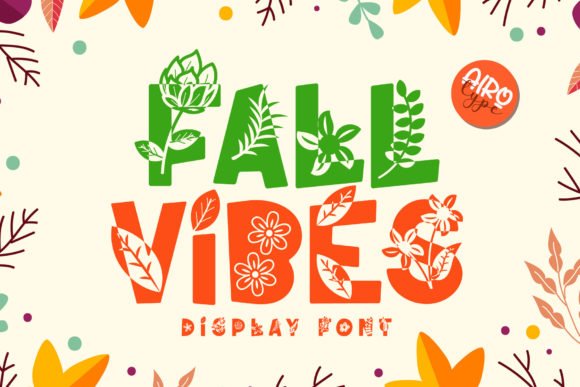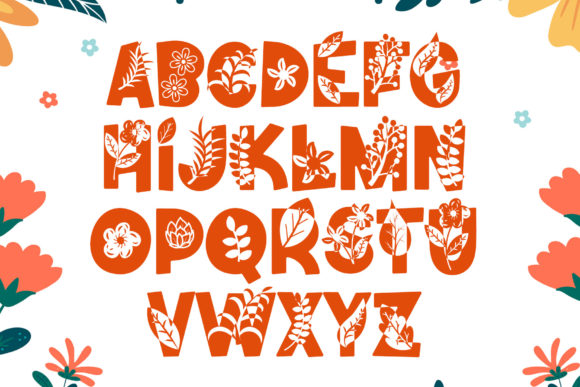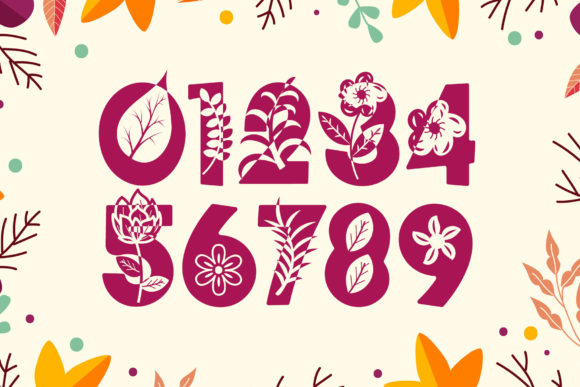
Embracing the Cozy Charm of Fall Vibes Font
You know that moment when you’re sipping on a warm cup of apple cider, surrounded by the vibrant colors of fall, and suddenly, inspiration strikes? The crunch of leaves, the glow of string lights, and the cozy atmosphere all blend together to spark a creative idea. For designers, this feeling is especially magical, and it’s exactly what the Fall Vibes Font is designed to capture.
Whether you’re crafting a seasonal card, branding a new business, or creating a set of labels, the Fall Vibes Font is the perfect addition to your project. Its cool and fun design will elevate your creations and add a touch of autumnal charm. With its versatility and unique style, the Fall Vibes Font is a valuable asset for designers looking to create engaging and seasonal content.
Key Features of Fall Vibes Font
- Font Family: Fall Vibes – a unique, hand-drawn font designed to evoke the feeling of autumn leaves and cozy nights.
- Unique Characteristics: Features intricate details, such as hand-drawn textures and subtle imperfections, to give it a warm and inviting feel.
Designer Review: Fall Vibes Font
First off, let me say that Fall Vibes Font is a visually appealing choice for any autumn-themed project. ✨ The intricate design and warm color palette really evoke the feeling of cozying up by a fireplace on a crisp fall evening. The font is also highly customizable, allowing you to adjust the size, color, and spacing to suit your specific needs.
One of the standout features of Fall Vibes Font is its versatility. ✨ It can be used for a variety of projects, from logos and branding to social media posts and print materials. The font also comes with a range of glyphs and characters, making it easy to create visually appealing headlines and titles.
- ⚠️ The font may not be suitable for projects that require a modern or minimalist aesthetic. The intricate design and warm color palette may be too busy or overwhelming for some designs.
Overall, Fall Vibes Font is a great choice for anyone looking to add a touch of autumnal charm to their project. While it may have some limitations, the font’s versatility and customization options make it a valuable addition to any designer’s toolkit.
Use the Fall Vibes Font in conjunction with autumn-themed colors and images to create a cohesive and inviting design.
Use it in headings and titles to add a touch of elegance and sophistication.
Experiment with different font sizes and styles to add visual interest to your design.
The Fall Vibes Font is perfect for:
- Autumn-themed invitations and party decorations
- Seasonal social media graphics and advertisements
- Food and beverage branding for fall-themed products
- Home decor and interior design projects